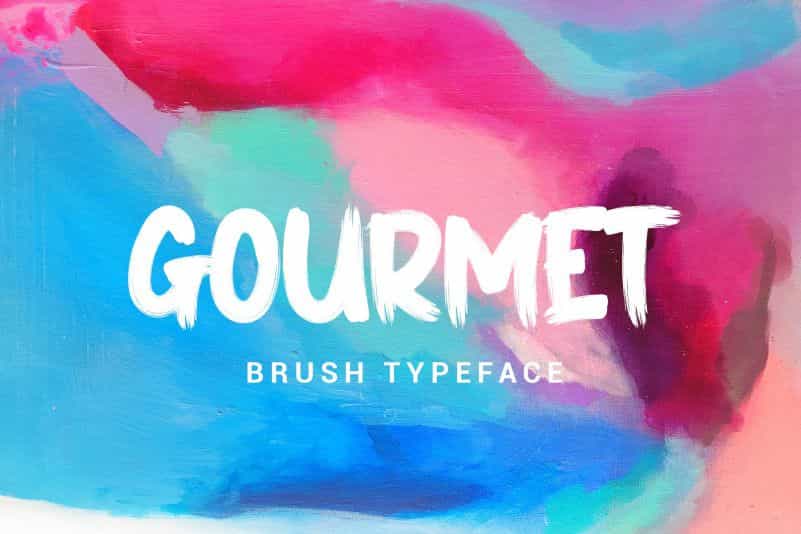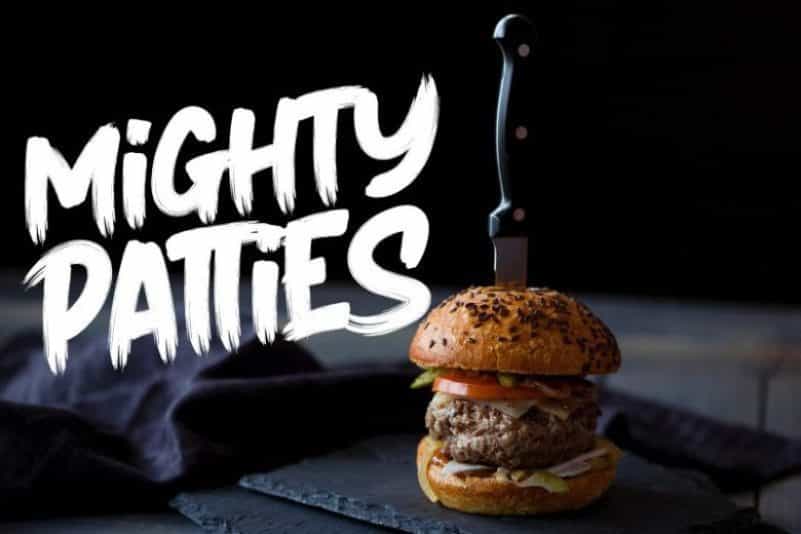
GOURMET Font is a casual dry brush font with a high contrast stroke, ready for you to create a perfect and unique design with the help of its numerous letter options.